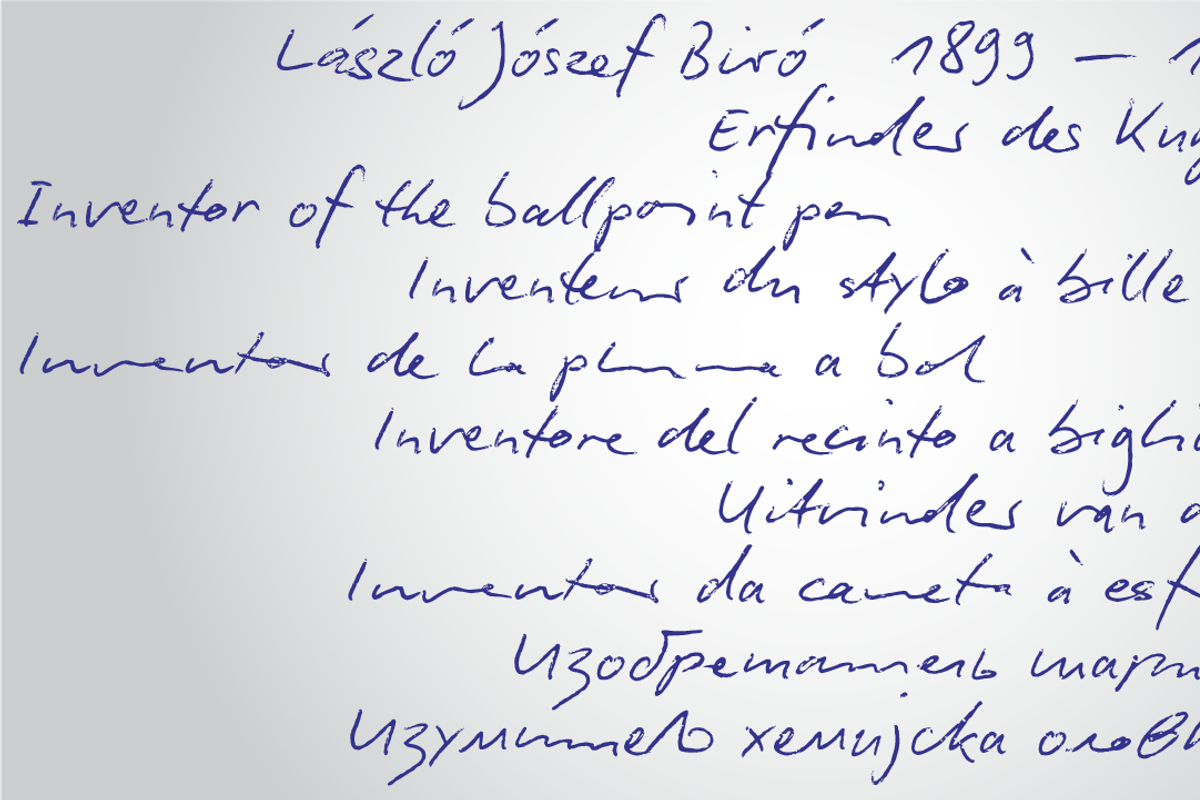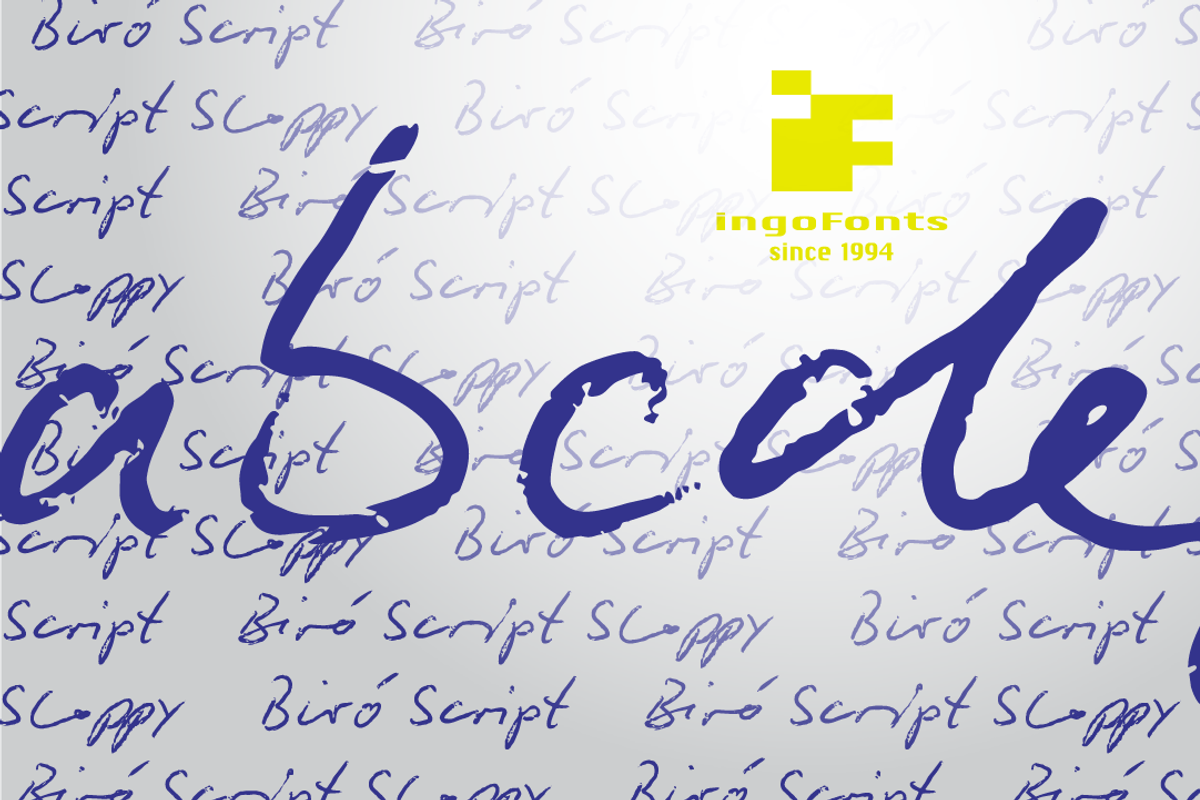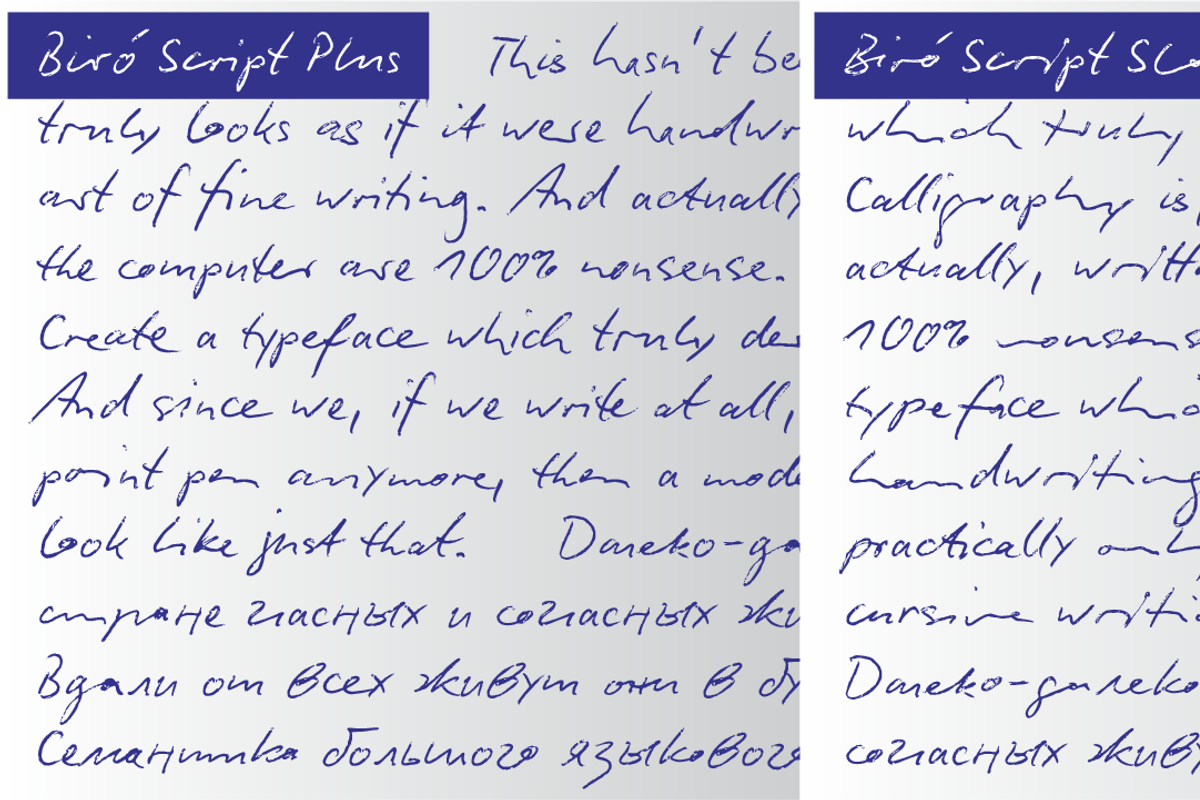
Biro Script Font is designed to mimic authentic handwriting created with a ballpoint pen. It features over 300 ligatures for a truly unique and natural look. The font is most convincing at sizes between 18 and 22 points, where the stroke thickness closely resembles that of a real ballpoint pen.
This preview highlights the unique shapes and multi-height variations of the Biro Font.